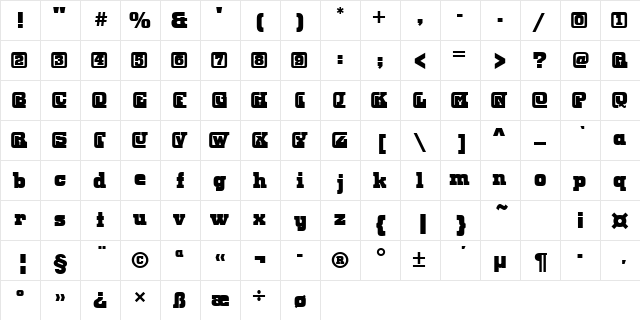
Odin Becker Initials Regular Font Preview
Odin Becker Initials Regular
Design Context for Odin Becker Initials Typeface
Odin Becker Initials offers clean, dependable letterforms without strong stylistic allegiance, making it a practical choice for designers who need flexibility.